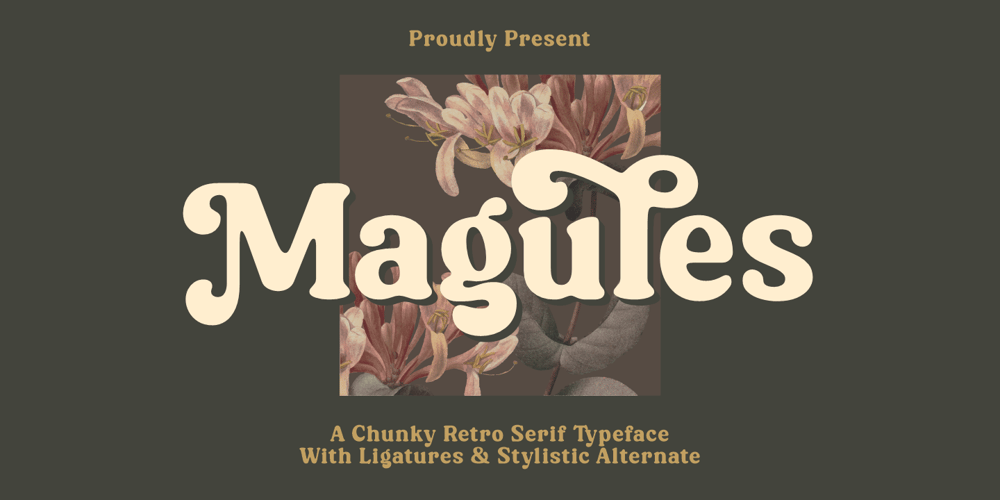
Magules Font Family was designed by Burhan Afif and published by HansCo. Magules contains 1 styles and family package options. Magules is a serif typeface with vintage and retro look!. Equipped with all complete characters ranging from uppercase letters, lowercase letters, numbers, punctuation marks and multi-lingual support, this font is ready to be used in any project.Enjoy!